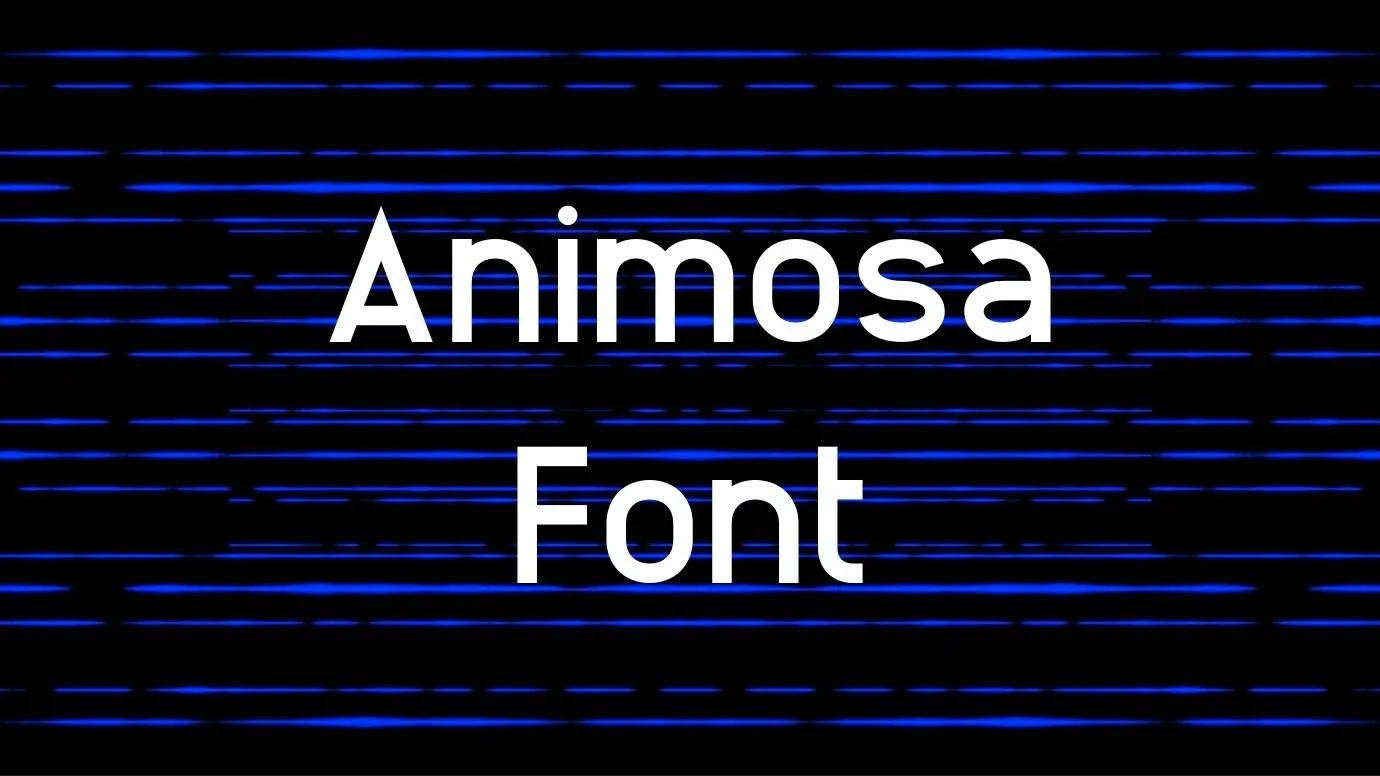
Animosa Font is a sans serif typeface created by an Italian typeface designer. Animosa typeface has a unique design that makes it stand out from other sans serif fonts. The font is perfect for branding and marketing purposes.
Animosa typeface is available in two weights, Regular and Bold. The Regular weight is perfect for body copy, while the Bold weight is ideal for headlines and titles. Animosa typeface also includes Latin, Cyrillic, and Greek character sets.
Animosa typeface has a complete set of characters including uppercase and lowercase letters, numerals, and punctuation marks. This typeface also supports over one hundred languages. This typeface is identical to the cera font.
Animosa typeface is a great choice for branding and marketing purposes. The font’s unique design will help your brand or product stand out from the competition. Animosa typeface is also a great choice for website design because it is highly readable and supports a wide range of languages. If you are looking for a sans serif font that is both stylish and functional, Animosa typeface is a perfect choice.
Creator of Animosa Font
This simple and stunning typeface is created by an Italian typeface designer Stefano Giliberti for the foundry Brumale in 2018.
This font style is designed with an exclusive and consistent style. This single attractive style is a combination of a lot of features, including Upper and lower-case letters, numbers, symbols, punctuations, glyphs, special characters, and different language support.
It can support up to 78 languages.
Can I use Animosa typeface for a design project?
Yes, Animosa typeface is a great choice for website design, because it is highly readable and supports a wide range of languages.
Is Animosa Font good for a magazine cover?
Yes, Animosa typeface is a good choice for magazine covers because of its stylish and unique design. The font is also highly readable and supports a wide range of languages.
Is Animosa Font Display font?
No, This typeface is not a display typeface, It is a basic Sans Serif typeface.